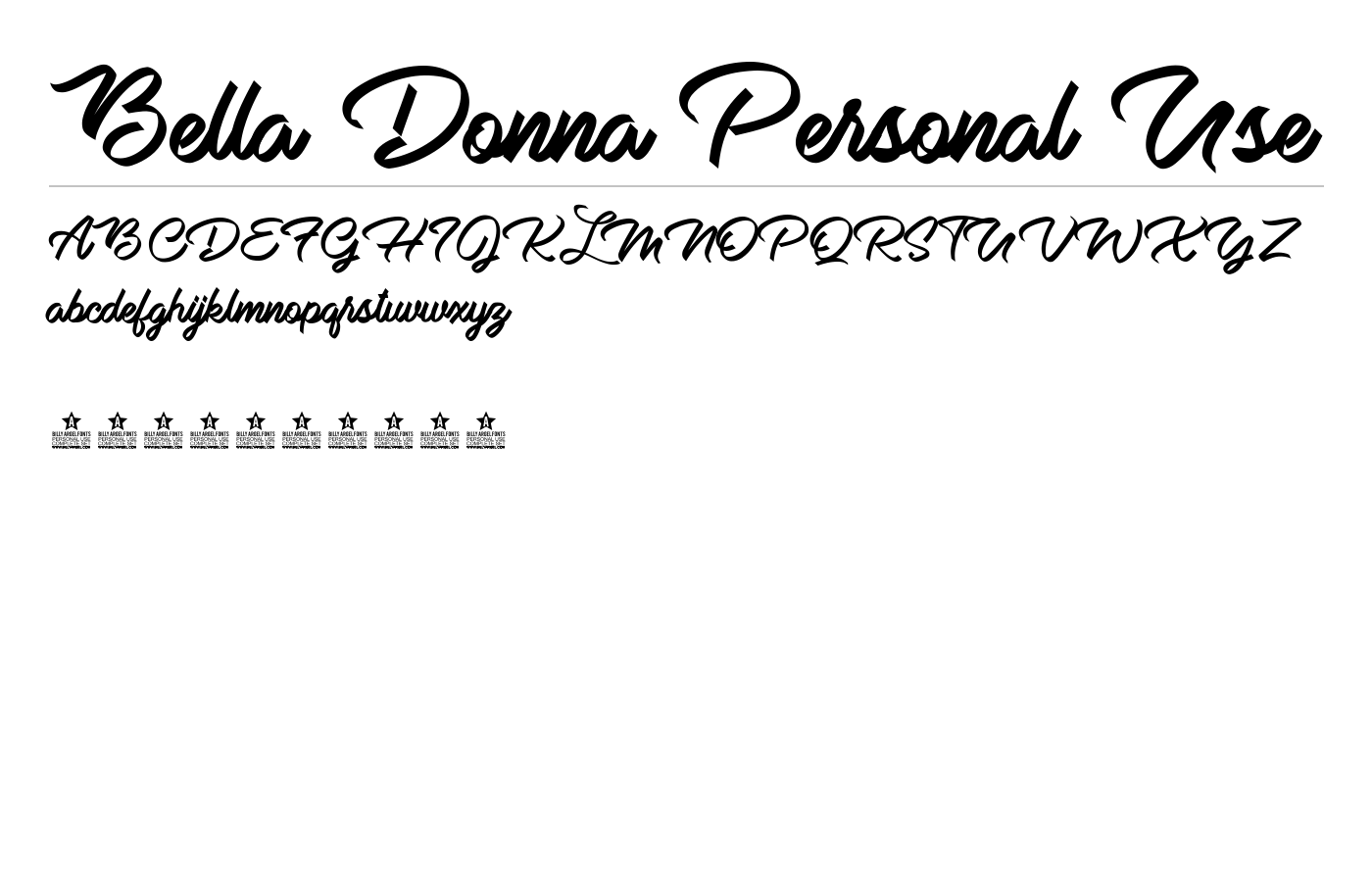
Bella Donna Personal Use is a stylish script font with a bold, brush-like appearance that evokes a sense of elegance and energy. Its flowing, connected letterforms and varying stroke thickness give it a lively, handcrafted feel ideal for branding, invitations, and creative projects where a personal and dynamic touch is desired. This font works wonderfully for headlines and logos seeking a modern yet artistic flair.
Bella Donna Personal Use Font
About Bella Donna Personal Use Font